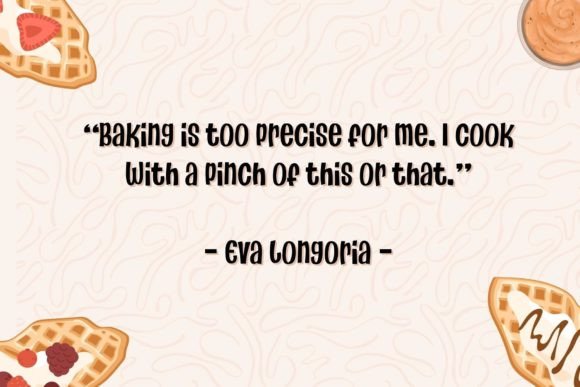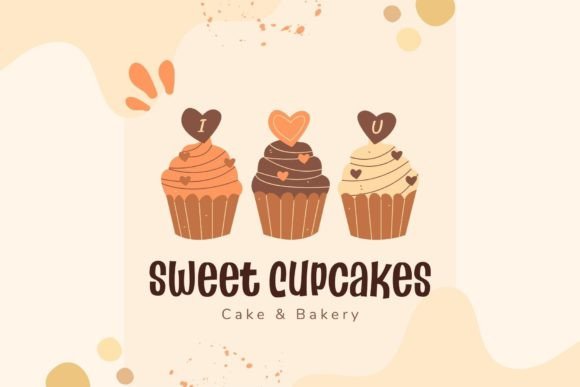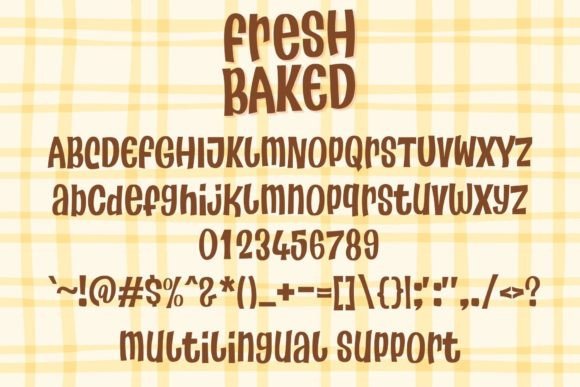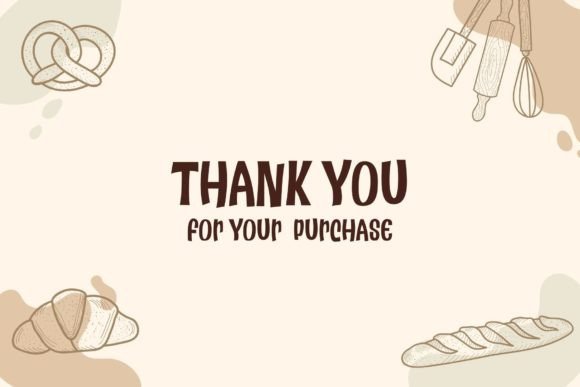
Introducing a Sweet Treat for Your Designs: Fresh Baked Font
Who hasn’t had that moment of pure creativity when they’re brainstorming a new project and the ideas just start flowing? For me, it’s usually when I’m sipping my morning coffee and scrolling through design inspiration on Pinterest. One idea that always sparks excitement is finding the perfect font to bring my project to life. That’s where the lovely Fresh Baked Font comes in – a fun display font that’s sure to make your crafts more attractive and fun.
This sweet and versatile font is perfect for any purpose, from digital invitations to handmade cards, and even branding for your small business. What makes Fresh Baked Font truly valuable for designers is its unique blend of playfulness and sophistication, making it an ideal choice for projects that need a touch of whimsy without sacrificing professionalism. Whether you’re a seasoned designer or a crafty hobbyist, Fresh Baked Font is sure to be a game-changer for your next project.
Fresh Baked Font Key Features
- Font Family:** Fresh Baked Font is a unique, hand-crafted font family consisting of 6 fonts: Regular, Italic, Bold, Bold Italic, Script, and Script Italic.
- Unique Characteristics:** Fresh Baked Font features a distinctive, hand-painted aesthetic with subtle texture and imperfections, giving it a warm, organic feel.
Fresh Baked Font Review
Overall, I’m impressed with the direction Fresh Baked Font is heading, but there are areas that need improvement. Let’s break it down.
- ✨ Beautifully crafted letterforms with subtle texture and depth, giving it a warm, inviting feel.
- ✨ Excellent legibility, making it suitable for body text and headings alike.
- ✨ The font family is well-structured, with clear weight and style distinctions.
However, there are some limitations:
- ⚠️ Limited language support, which may be a concern for global brands or publications.
- ⚠️ The font’s texture and depth may not be suitable for all designs, particularly those requiring a clean, minimalist look.
- ⚠️ Some characters, such as certain punctuation marks, could be improved for better readability.
Overall, Fresh Baked Font shows promise, but it needs refinement to compete with established font families. With some tweaks and expansions, I believe it has the potential to become a go-to choice for designers seeking a warm, inviting look.
Tips for Getting the Most Out of “Fresh Baked Font”
Use “Fresh Baked Font” for titles and headings to add a touch of warmth and sophistication to your designs.
Pair “Fresh Baked Font” with other fonts to create a unique and visually appealing typography style.
Experiment with different font sizes, colors, and styles to find the perfect look for your design.